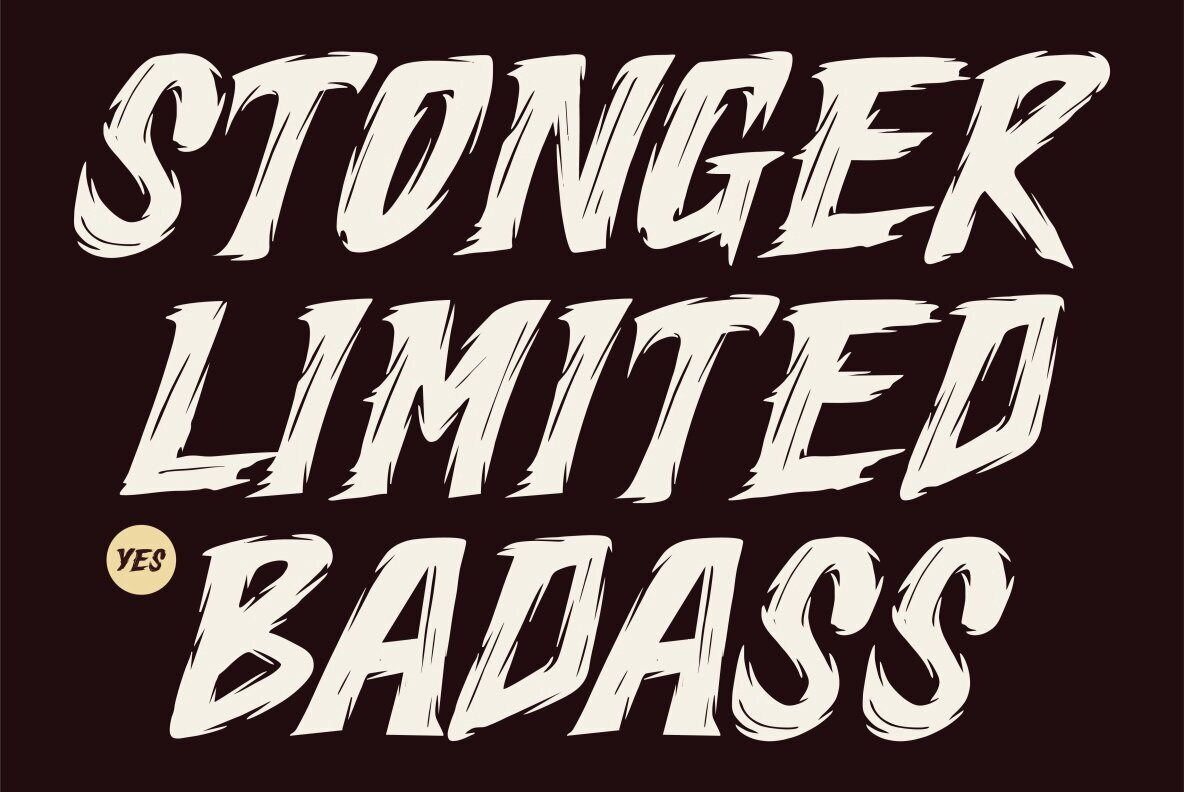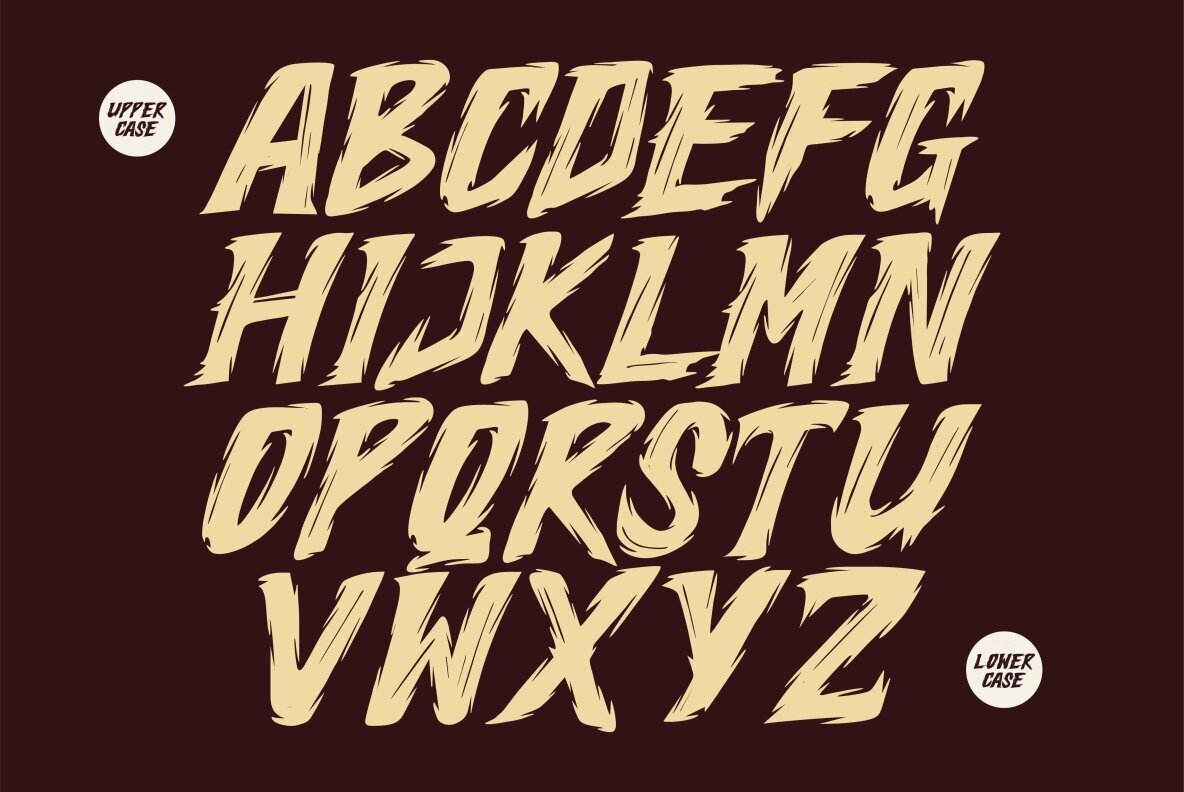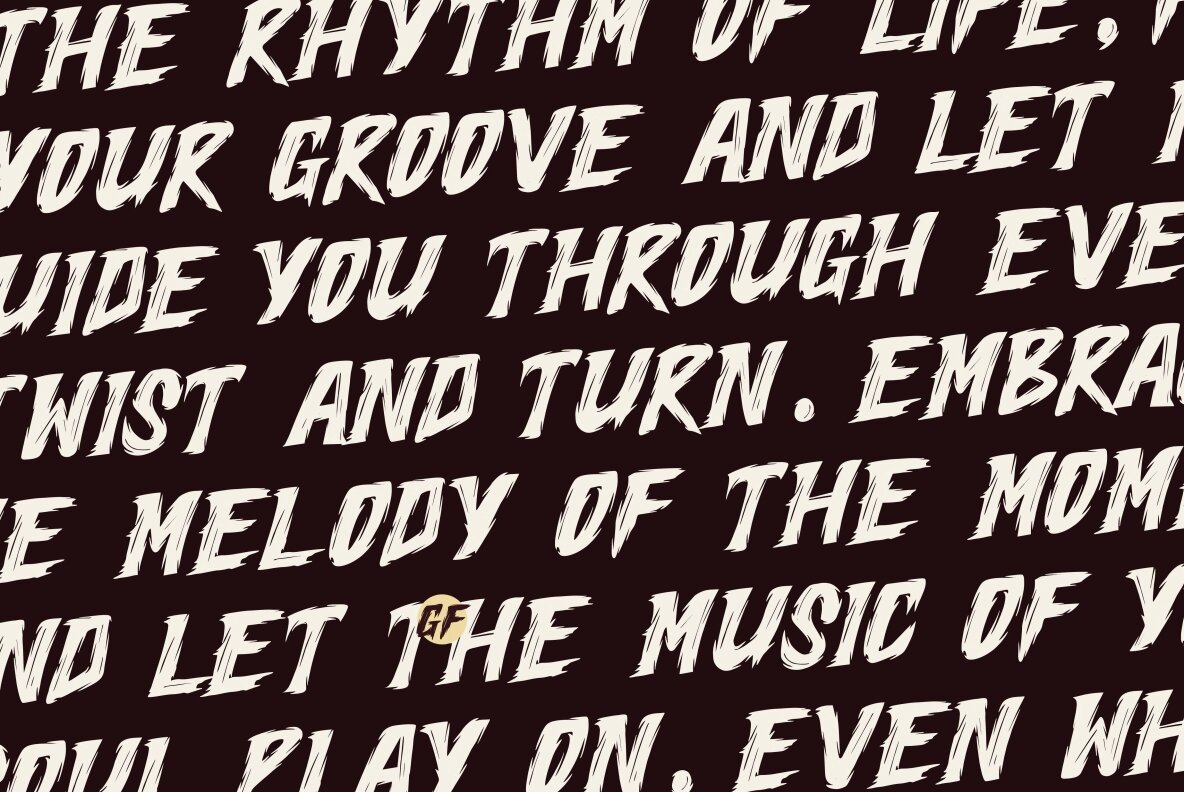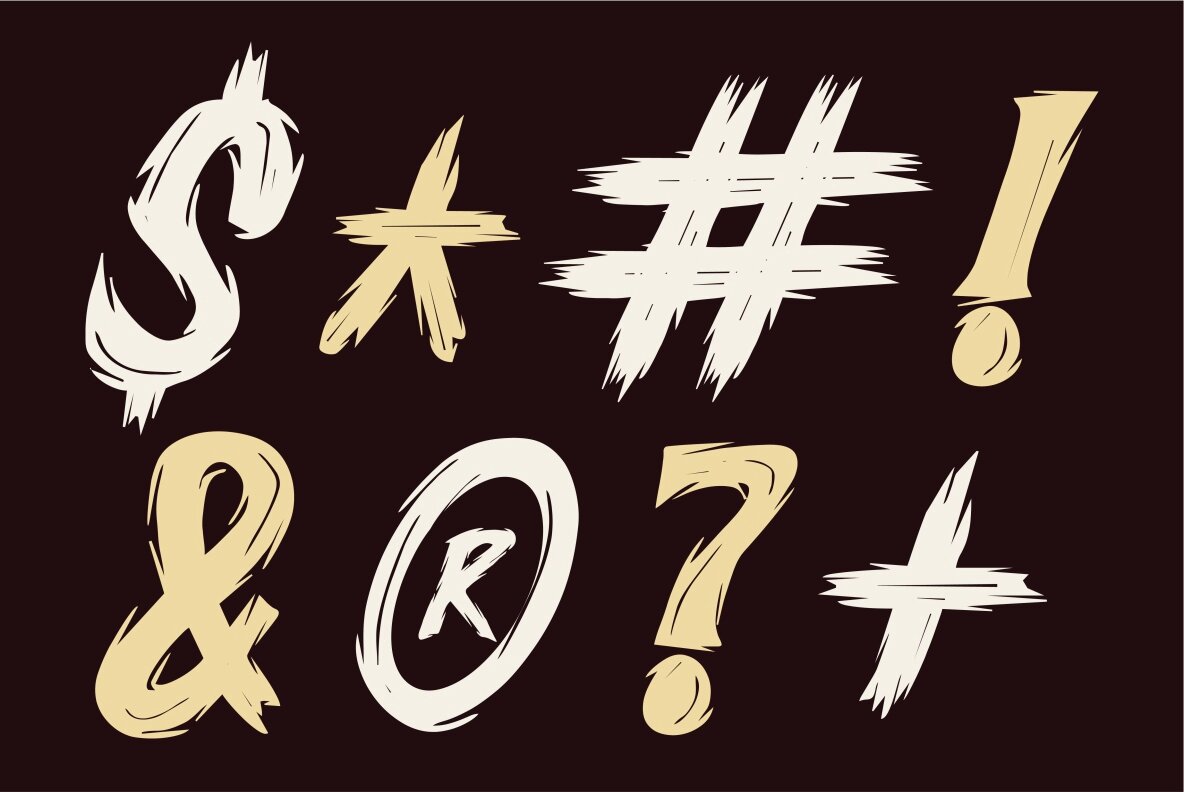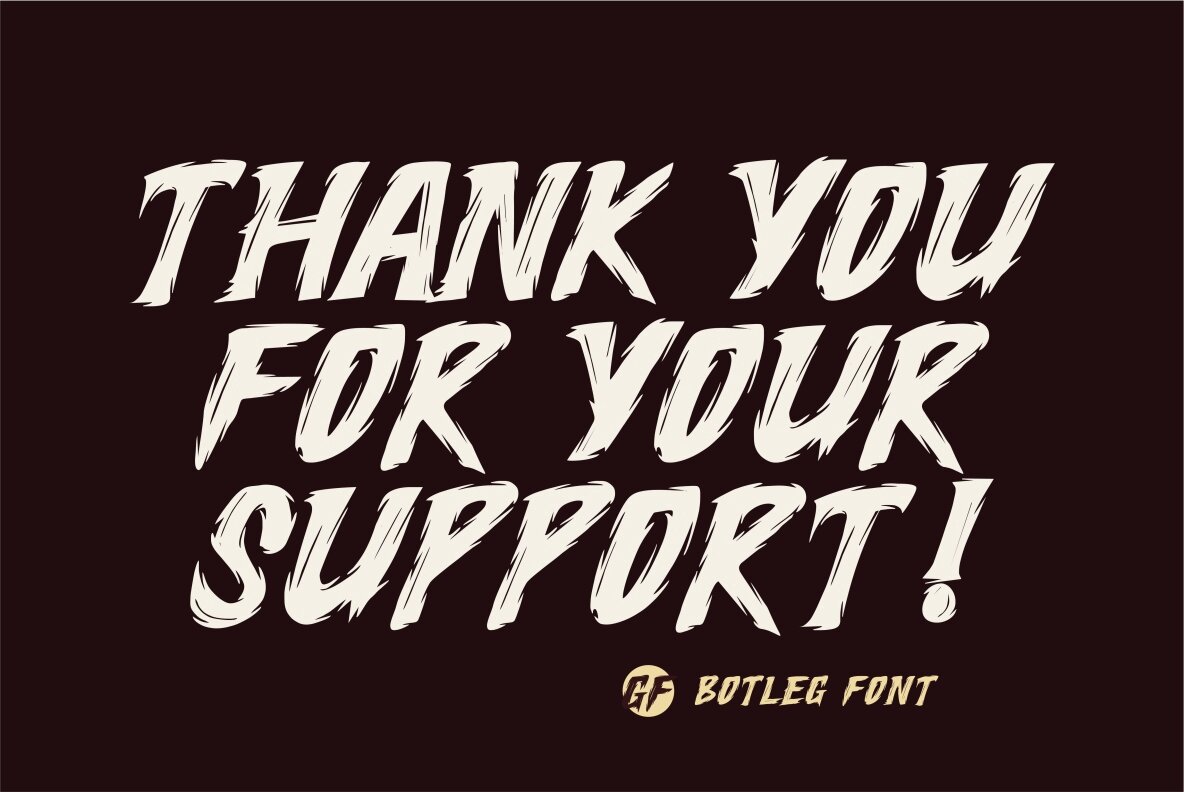
GF Botleg Font
GF Botleg Regular
GF Botleg is a trendy brush font characterized by its soft, uniform scratchy texture. This display font is perfect for adding a modern and stylish flair to your design projects. The subtle scratch effect introduces a unique element to the characters, enhancing their visual interest and providing a fashionable edge.
This font package includes uppercase and lowercase letters, numerals, punctuation, and multilingual support, making it versatile for a variety of uses. Whether for digital or print media, GF Botleg offers a distinctive style that stands out in any project.